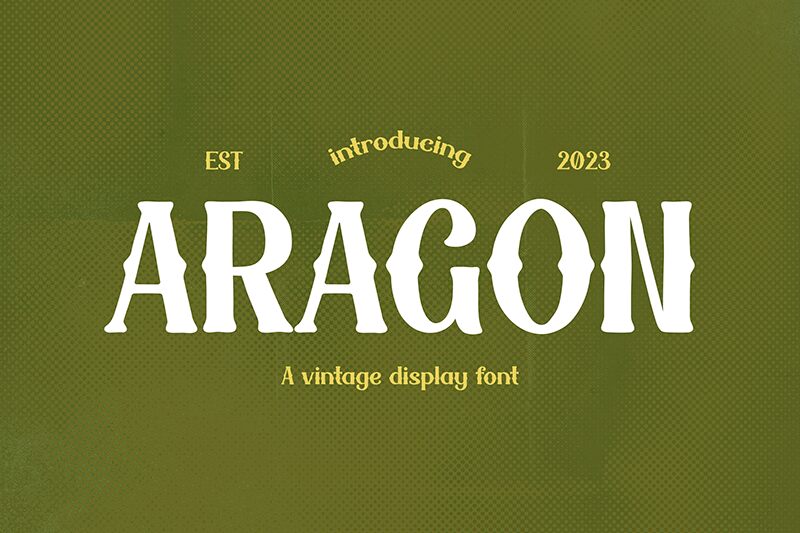
Aragon
Aragon font by Idebareng is a free retro display typeface. It leans into inky, carved forms—chunky stems, soft wedge serifs, and those bulb-like counters that feel hand-pressed, almost woodcut. The rhythm is lively but grounded, giving headlines a tactile thump without turning messy. There’s just enough wobble to read as vintage craft, not kitsch.
Using Aragon, you get instant character for posters, boutique logos, bottle labels, album covers, coffee or chocolate packaging, and editorial drop caps. The generous curves hold up at large sizes and still read clean in short subheads. This free font pairs beautifully with a tidy grotesque sans for body copy; try slightly tighter tracking when you go big.